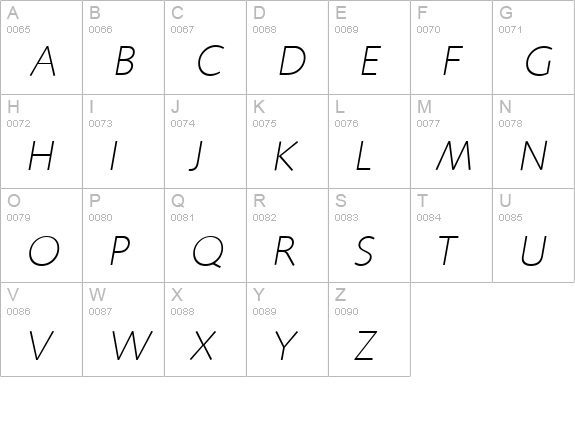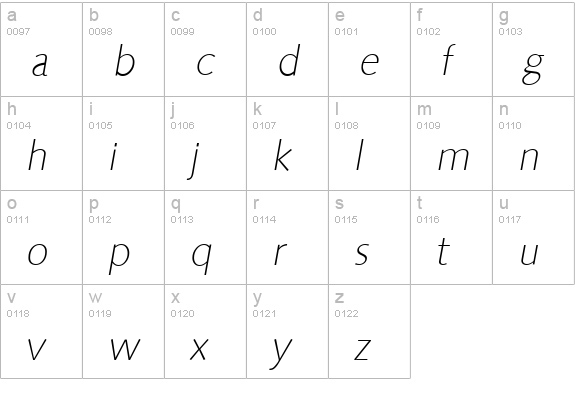
SaxonySerial-Xlight-Italic is a distinctive, italic variant in the SaxonySerial typeface family \xE2\x80\x94 well suited to design and typography projects.
Introducing SaxonySerial-Xlight-Italic, a sleek and elegant font designed to add a touch of sophistication to your projects. This font features a delicate italic style with a light weight, making it perfect for creating refined and modern designs. The smooth curves and stylish letterforms of SaxonySerial-Xlight-Italic exude a sense of sophistication and class. What's even better is that SaxonySerial-Xlight-Italic is completely free to download at FontsMarket.com. This means you can easily access this premium font without any cost, making it a valuable addition to your font collection. Whether you are working on branding, advertising, invitations, or any other design project, SaxonySerial-Xlight-Italic is sure to elevate your work with its unique charm and elegance. Don't miss out on the opportunity to enhance your designs with the timeless beauty of SaxonySerial-Xlight-Italic. Download this exquisite font for free today and let your creativity shine.